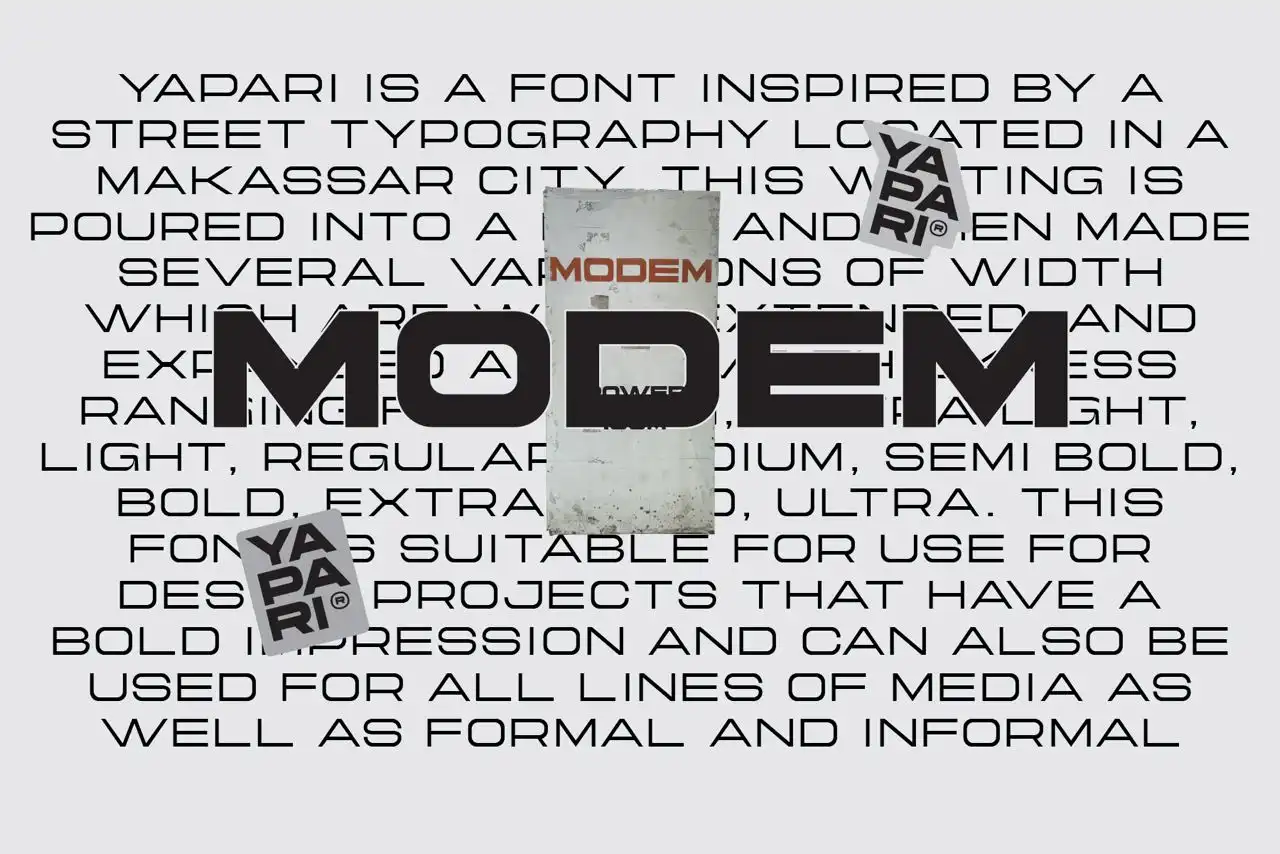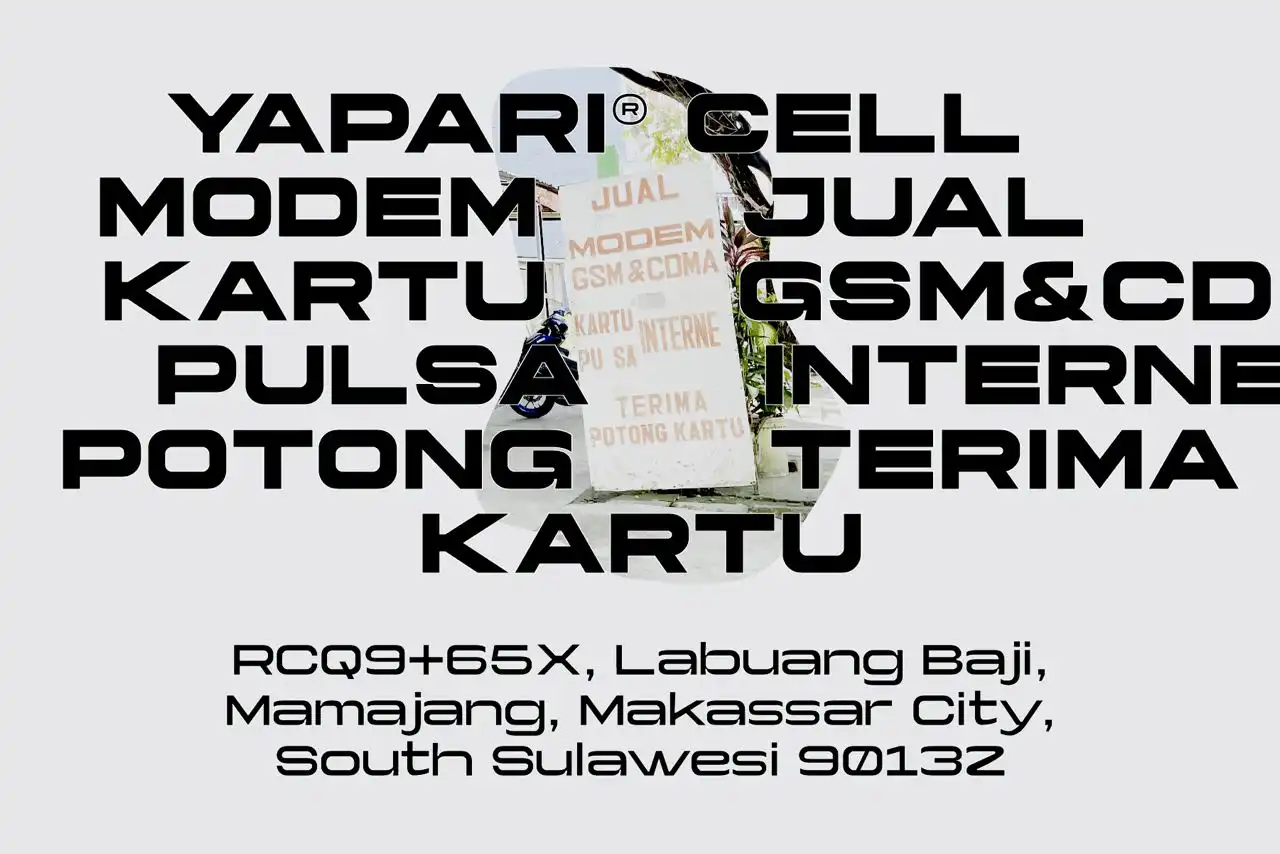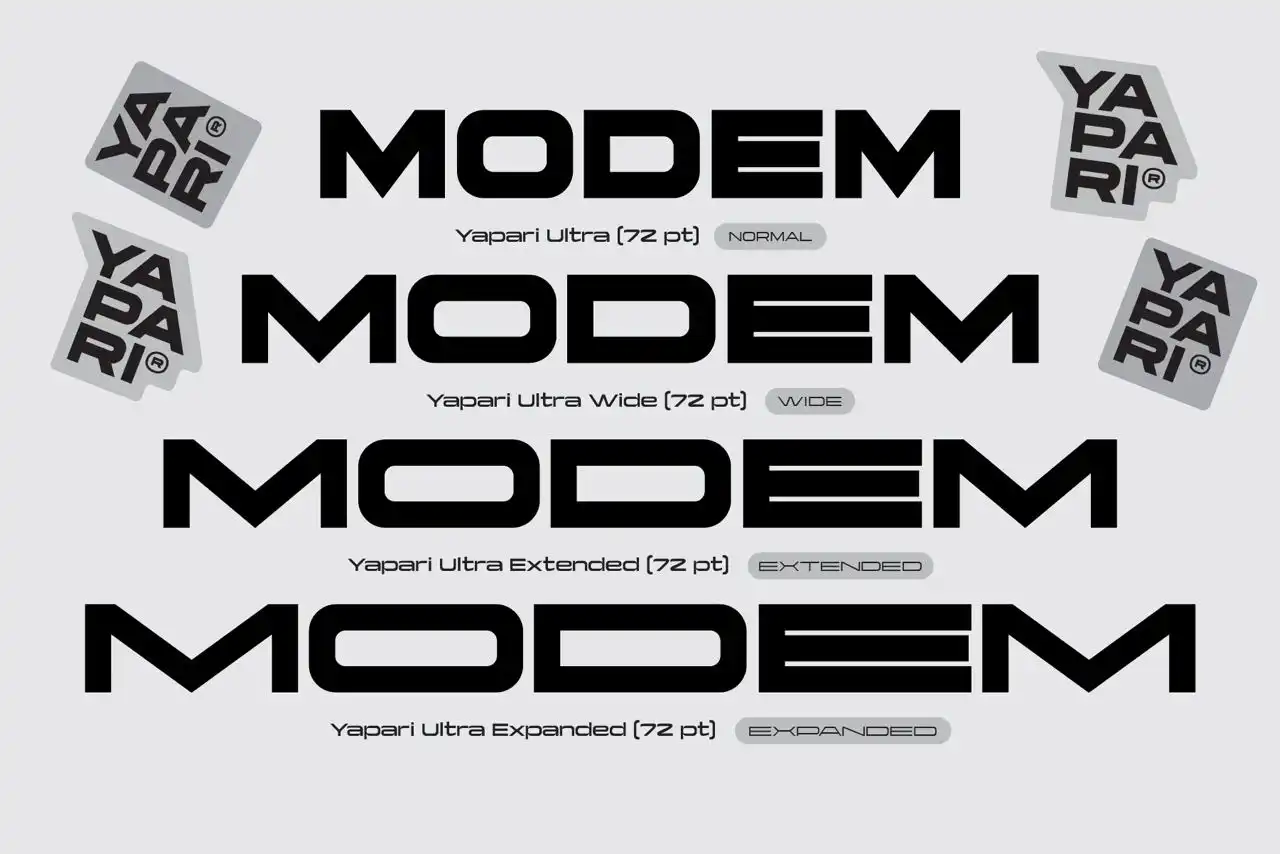
Yapari Typeface
Introducing the Yapari Typeface! 🎉 This vibrant digital download offers instant access to a stunning font inspired by the street typography of Makassar city. Whether you’re working on a creative project or looking to add a modern touch to your designs, this font has you covered! ✨
The Yapari font is an extended sans serif typeface that captures the essence of urban art. With its unique character and stylish design, it’s perfect for both digital and print projects. You’ll find yourself inspired by its versatility and charm. 🌟
- Multiple Widths: Choose from 4 different widths to fit your design needs perfectly.
- Various Weights: With 9 weight options, you can create stunning contrasts and hierarchies in your typography.
- Modern Aesthetic: The contemporary design makes it suitable for various applications, from branding to web design.
- Yapari Typeface in multiple widths and weights
This font is an excellent choice for graphic designers, typographers, and anyone looking to add a touch of modern flair to their creative work. Whether you’re designing logos, posters, or social media graphics, Yapari will make your text pop! 🎨